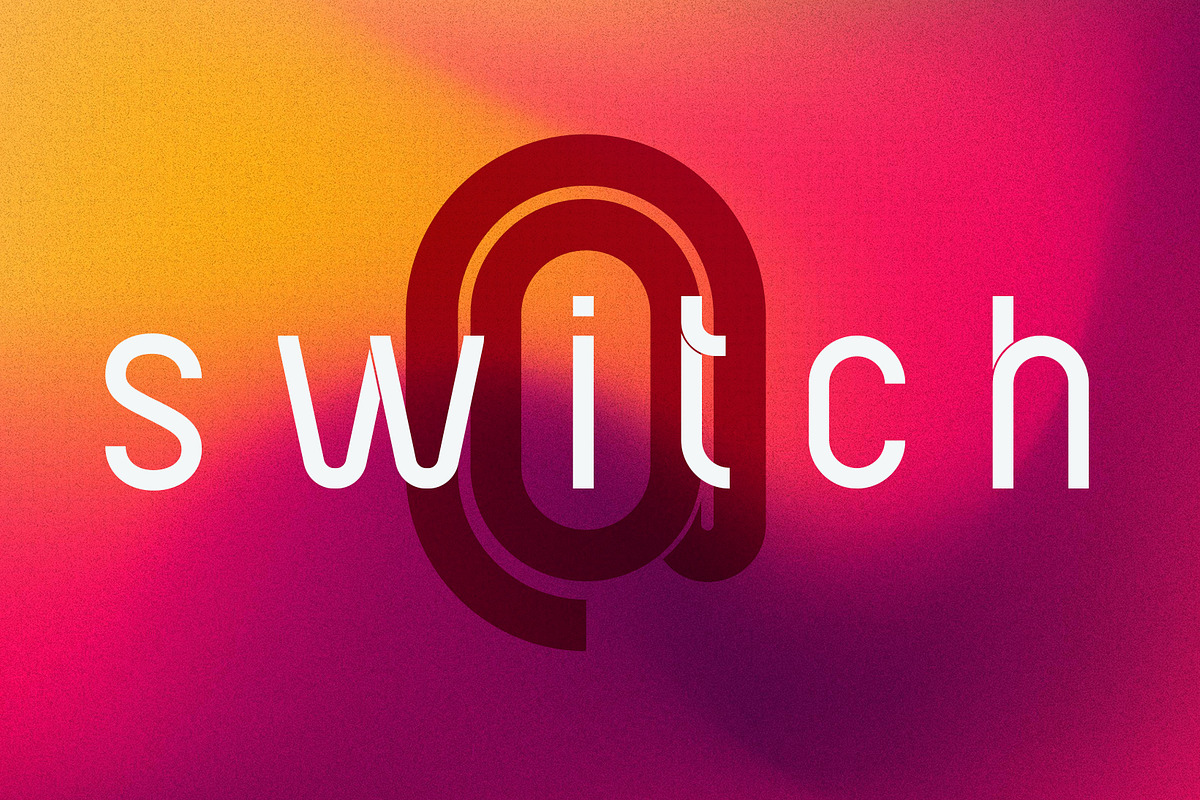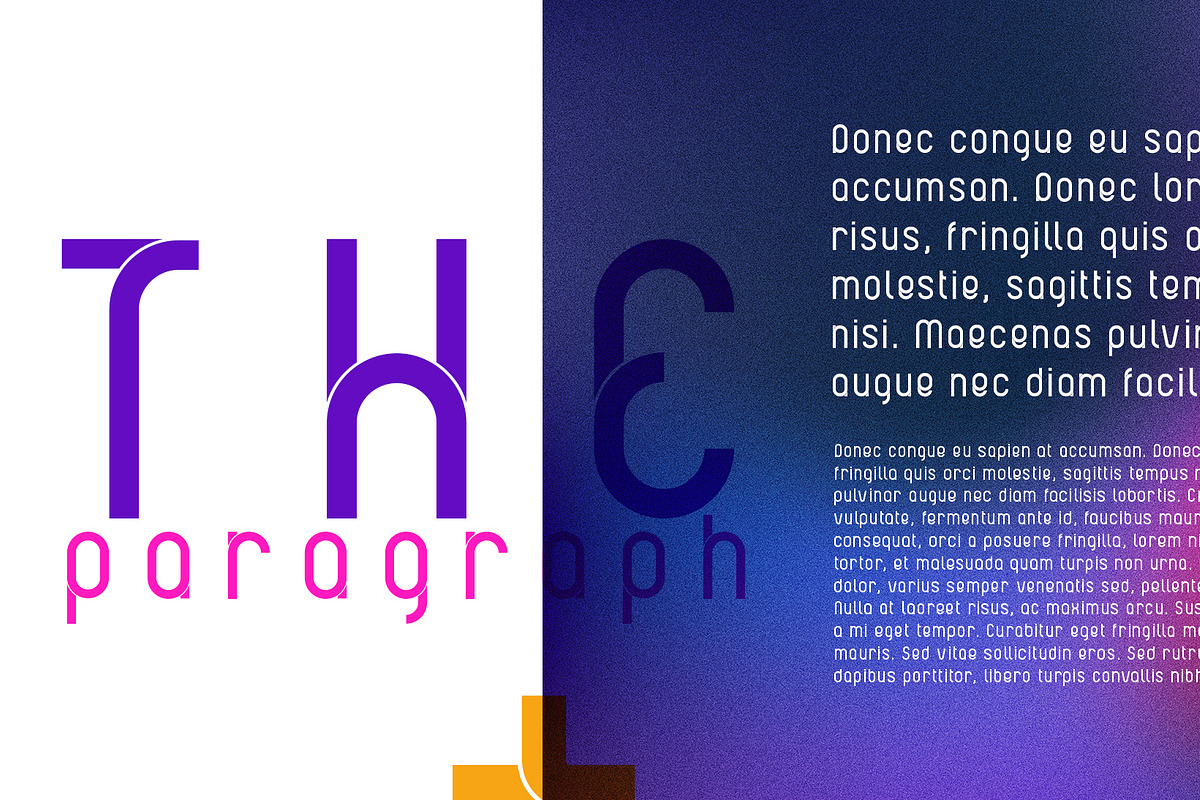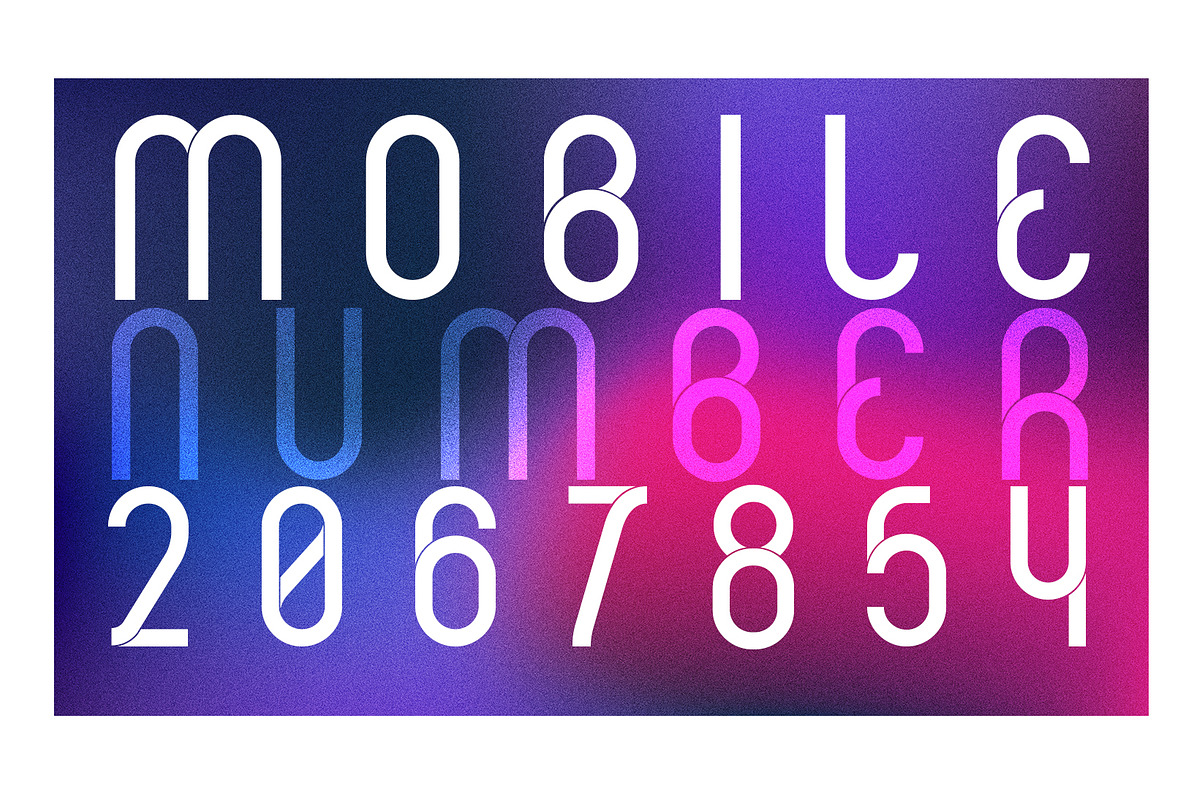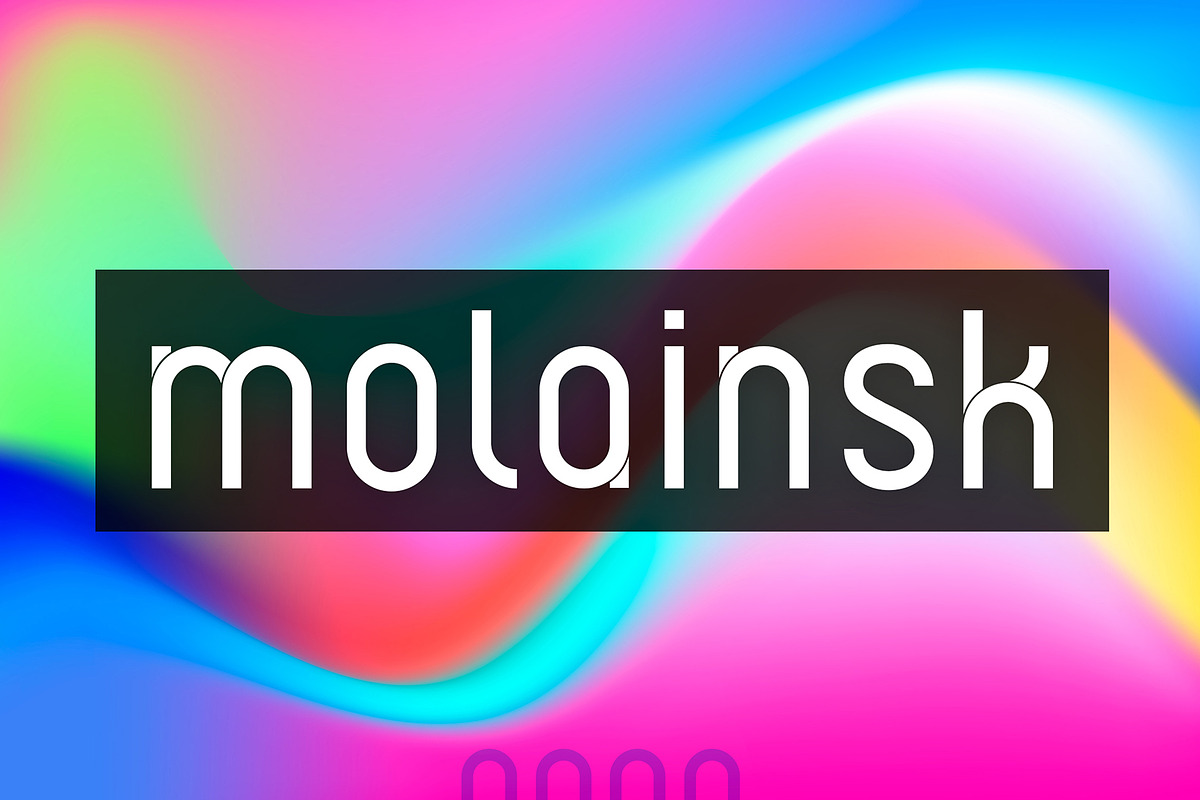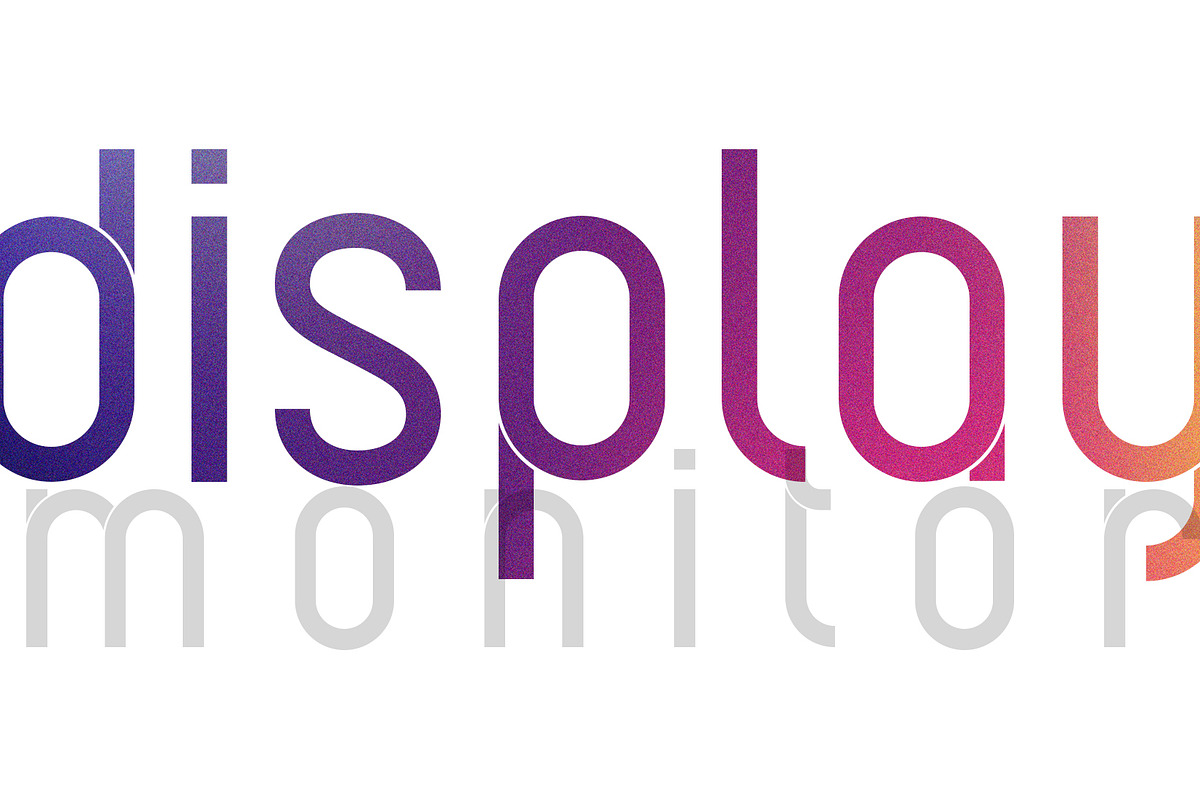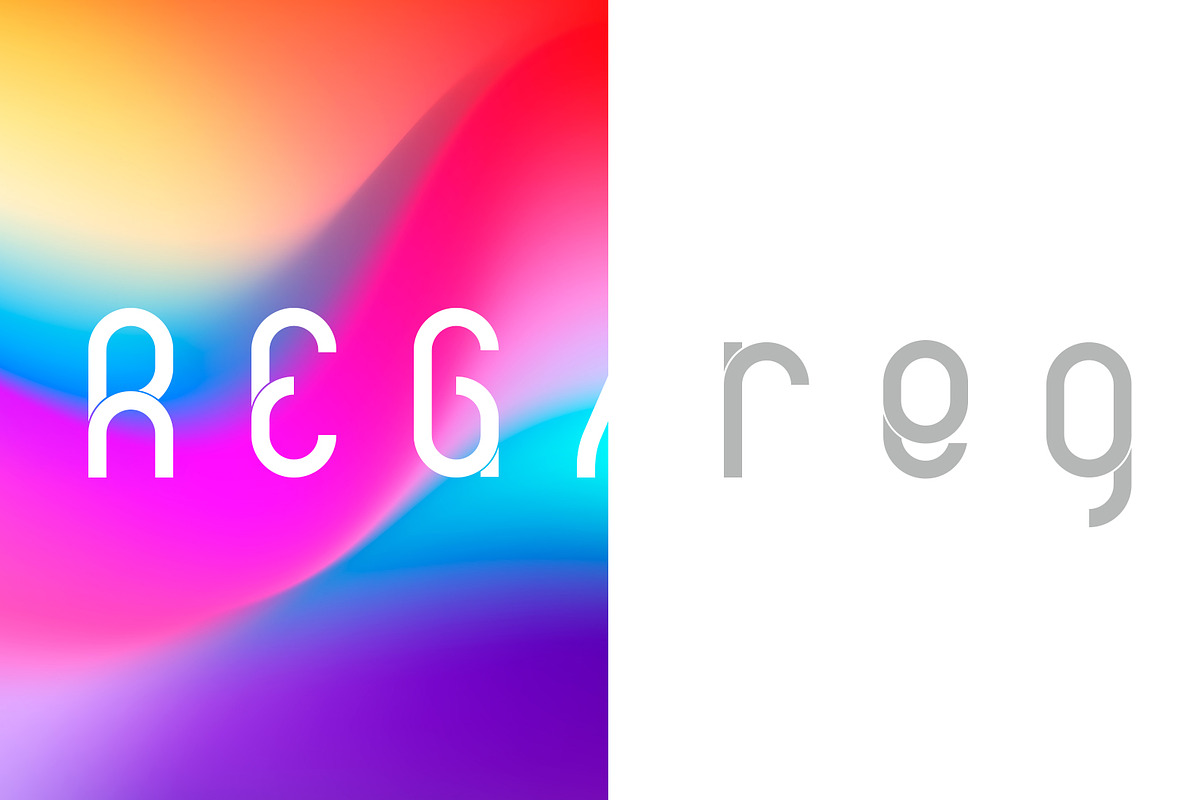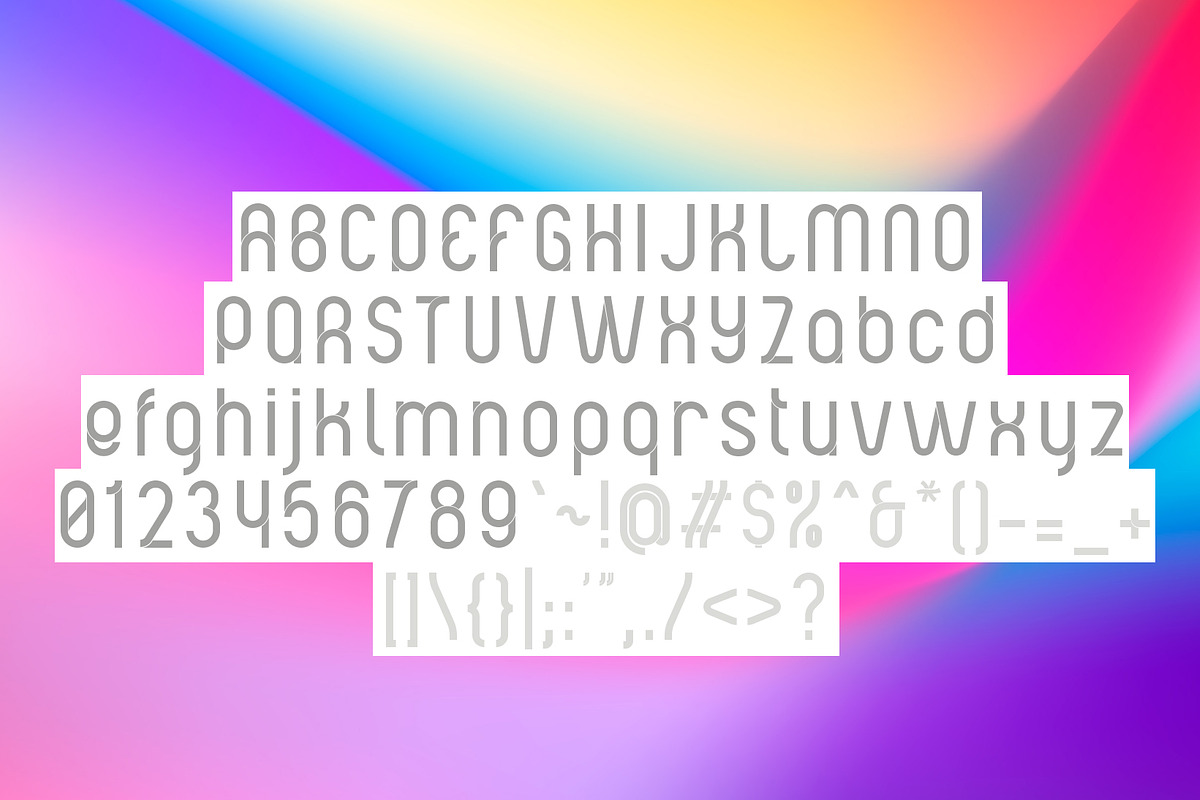
Molainsk
Molainsk is a clean, modern and minimalist font that inspired by curved shape. It's very versatile in use, especially in logo design or brand identity project.